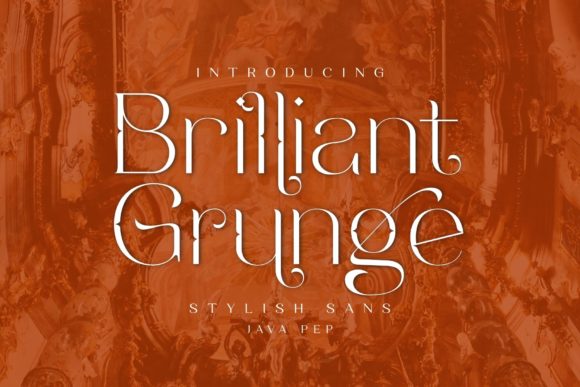
Brilliant Grunge Font
Welcome to the captivating world of Brilliant Grunge, where elegance and uniqueness intertwine. This exquisite serif font, crafted with meticulous care by JavaPep, is your gateway to captivating creations that will leave an unforgettable mark.
Picture this: the warmth of a family reunion, where laughter and love intertwine. Brilliant Grunge becomes the perfect font to capture these cherished moments, its thin, graceful strokes echoing the bonds that unite you. Let your invitations and family keepsakes radiate with the timeless charm of this font.
For designers seeking a touch of sophistication, Brilliant Grunge is a dream come true. Its PUA-encoded nature grants you effortless access to a treasure trove of glyphs and swashes, unlocking unlimited possibilities for your designs. Whether you're crafting elegant logos, captivating posters, or eye-catching social media graphics, Brilliant Grunge will elevate your creations to new heights.
But there's more to this font than meets the eye. Its versatile style makes it a chameleon of the design world, adapting seamlessly to a kaleidoscope of themes and styles. From whimsical wedding invitations to bold branding materials, Brilliant Grunge has the power to transform your ideas into masterpieces.
So, dear creative soul, embrace the alluring embrace of Brilliant Grunge. Let its thin, elegant strokes ignite your imagination and guide you towards designs that captivate and inspire. Whether you seek to preserve family memories or unleash your artistic prowess, Brilliant Grunge is your indispensable companion on this extraordinary journey.